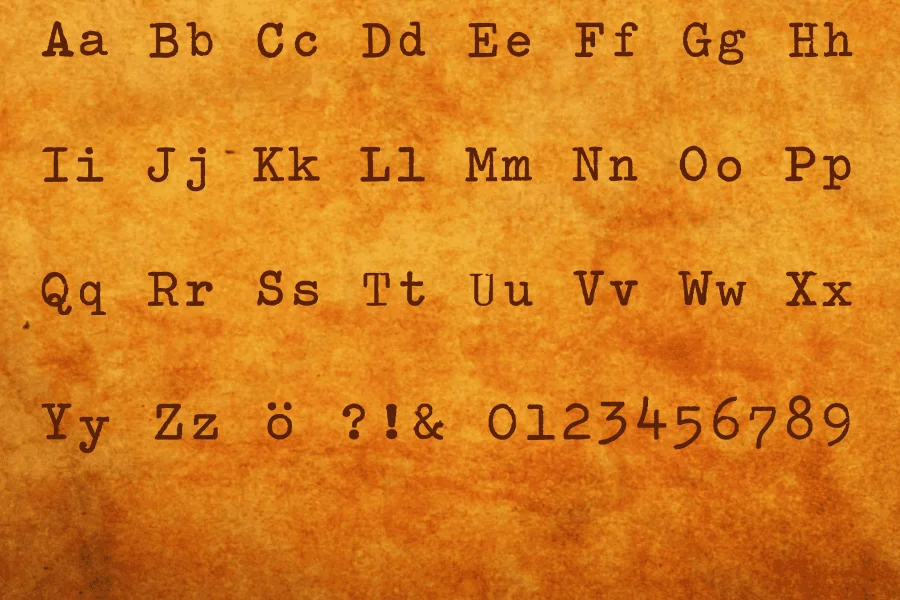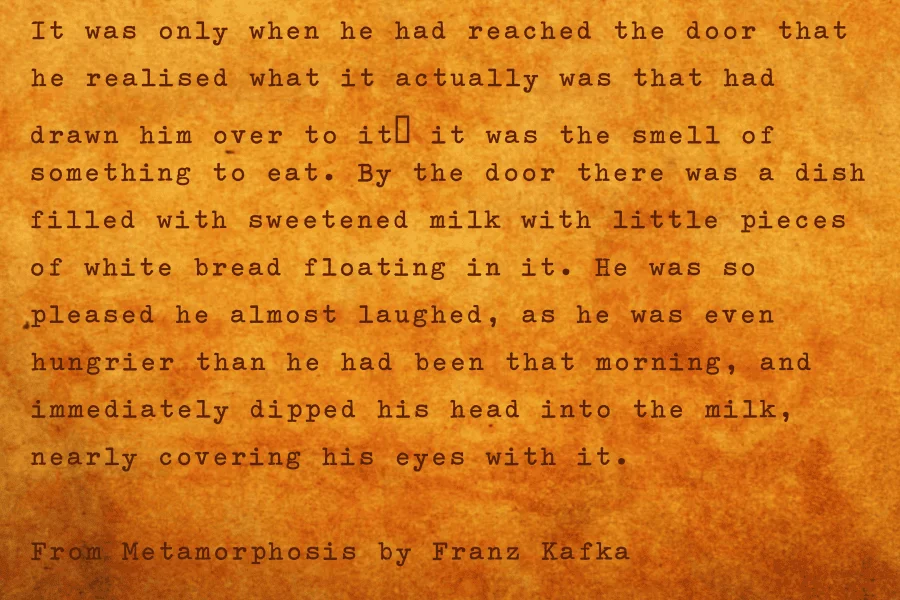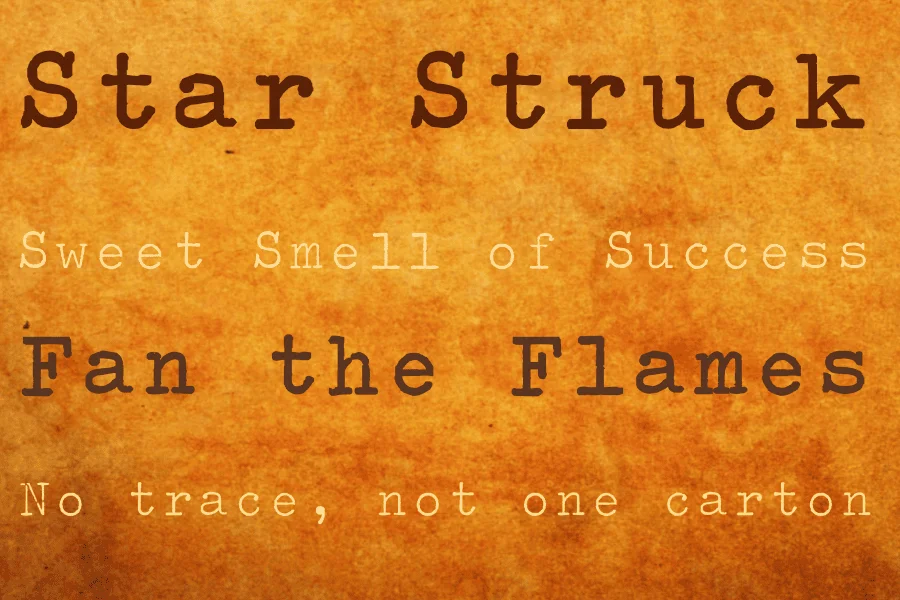
Splendid 66 is a slab‑serif typeface with a strong vintage / retro vibe, leaning into a bold, mechanical aesthetic that calls to mind mid‑century printing or old‑school typewriter‑style signage. The letterforms are sturdy and blocky, with slab‑serif endings giving a sense of weight and solidity — ideal for display or headline use rather than body text.
The font’s style carries a gritty, slightly worn or “used” texture, which adds character and a sense of age or nostalgia — perfect if you want an authentic, vintage, somewhat industrial look.
Because of its boldness and slab‑serif personality, Splendid 66 works great for posters, branding, logos, packaging, flyers, signage — anywhere you need text that stands out, commands attention, and evokes a retro, rugged or analog‑era aesthetic.